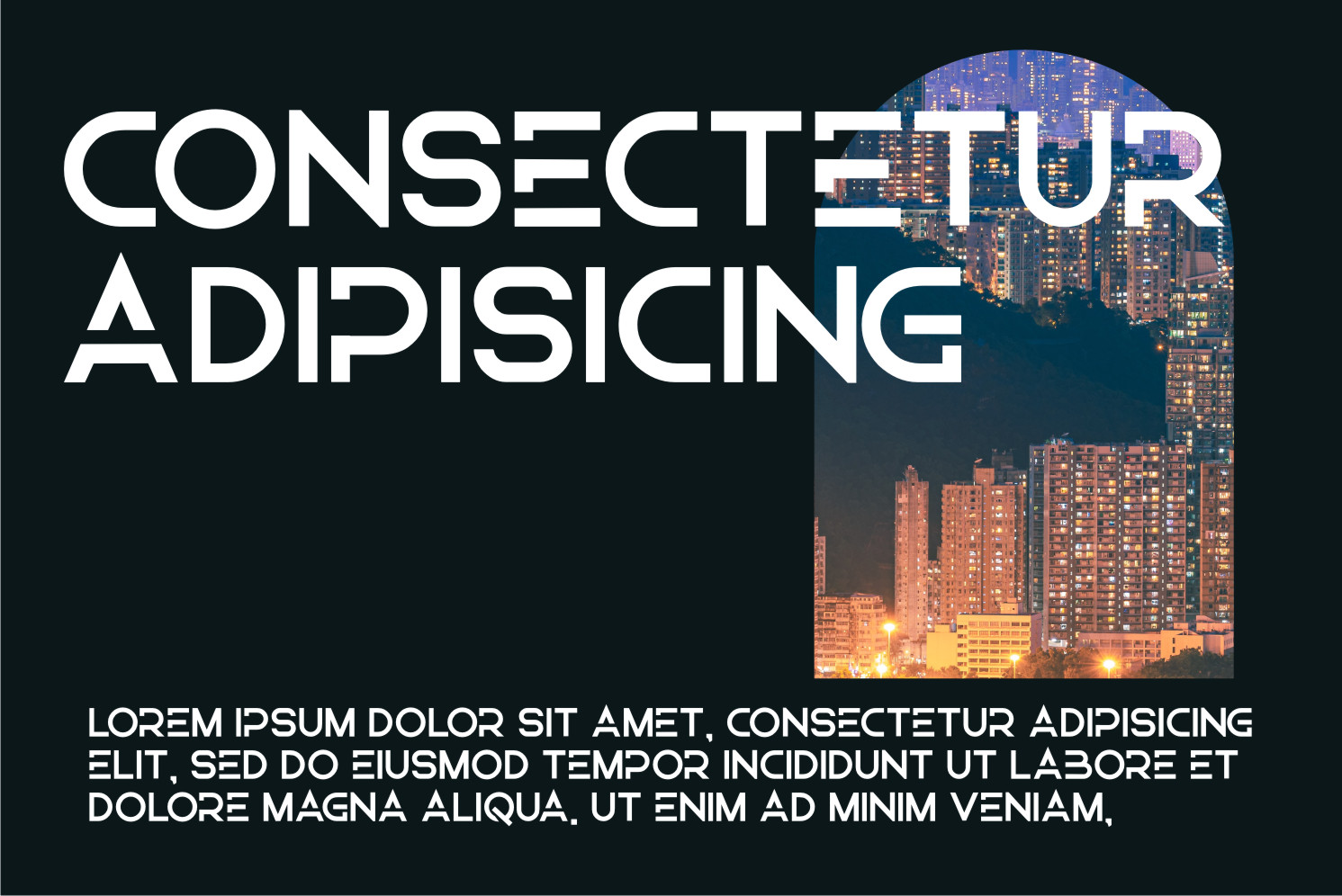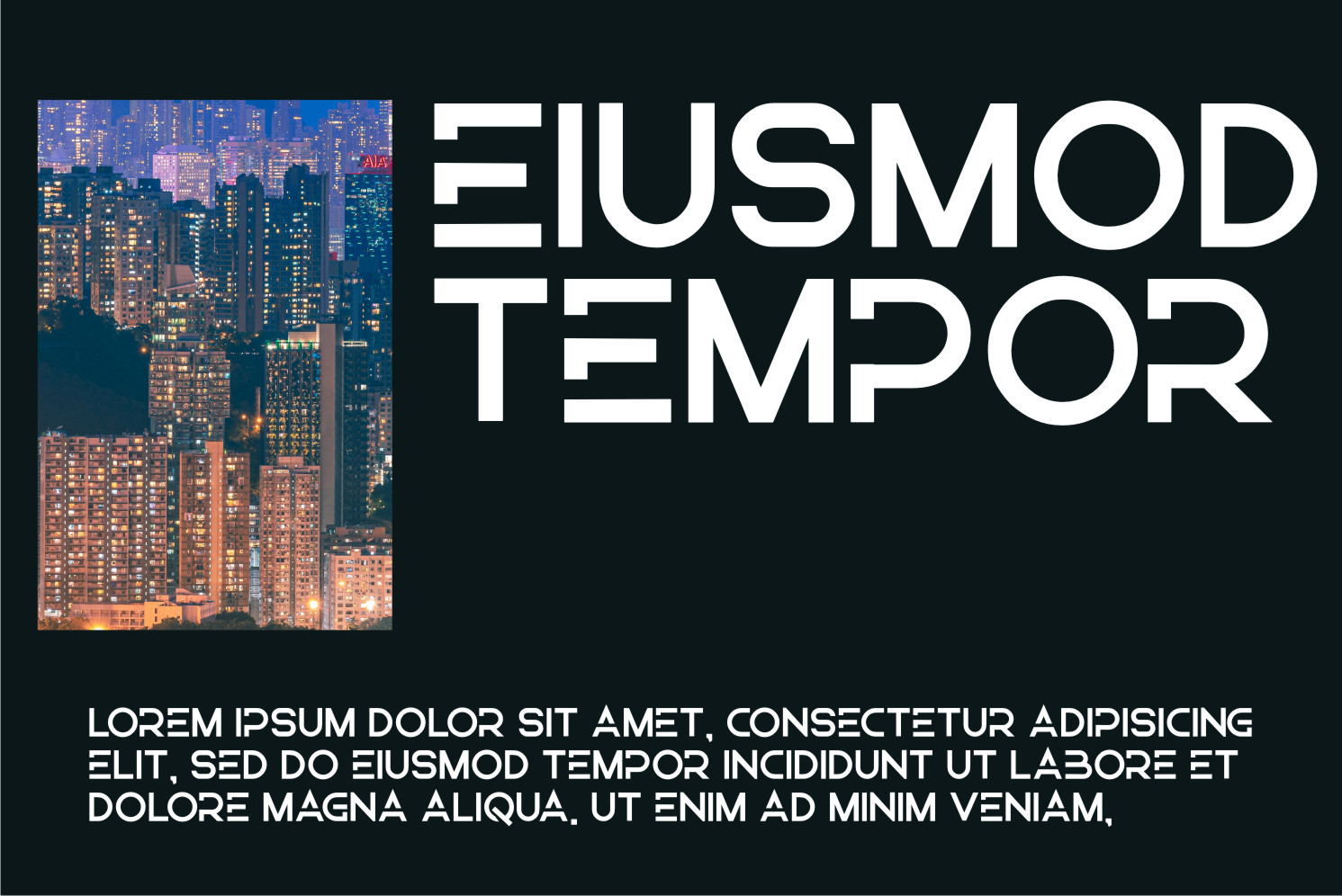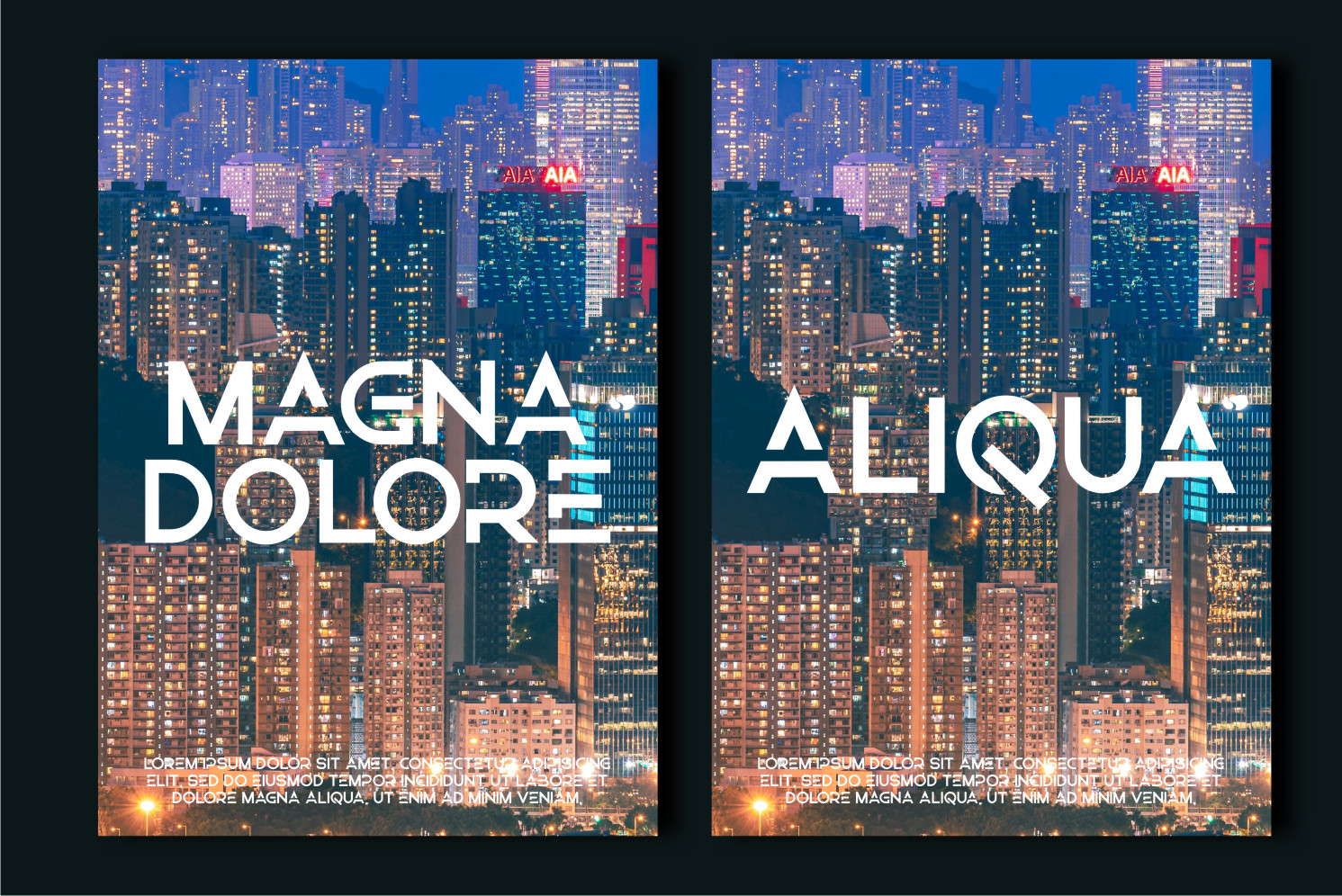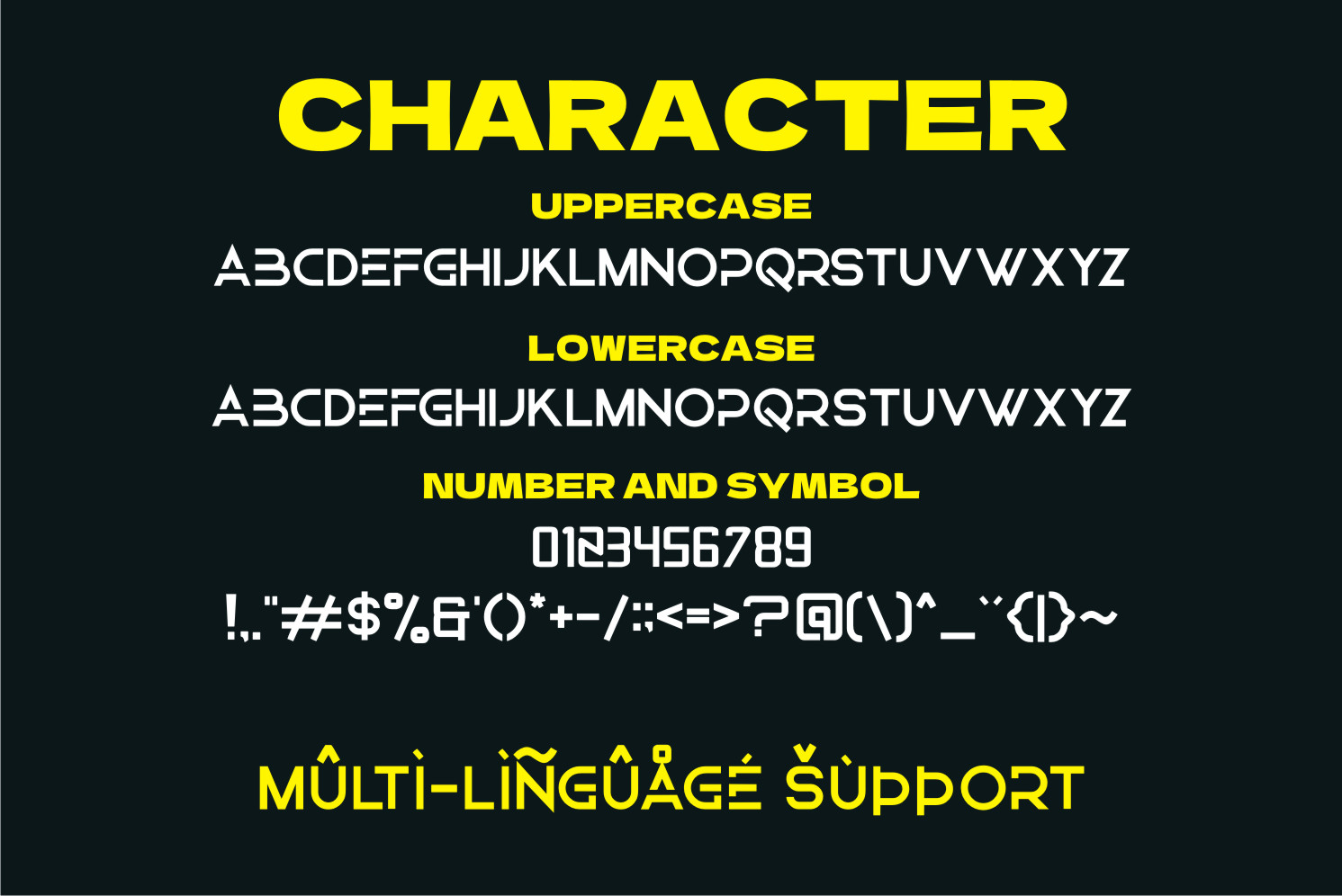
Efapro Font
Efapro Display Font
It’s a cool and robotic styled display font. This font is ideal for writing web designs, business cards, or pretty much anything else that requires a futuristic touch.